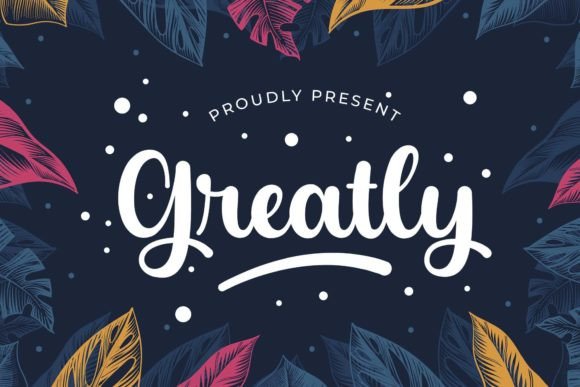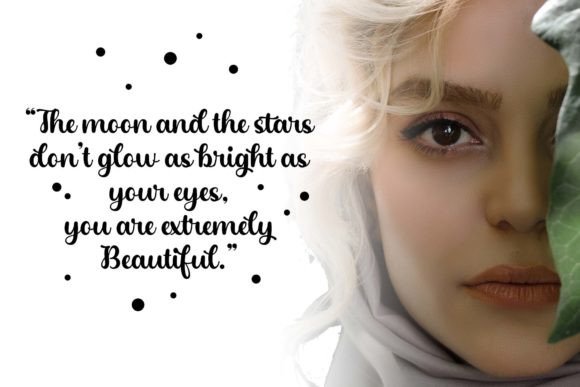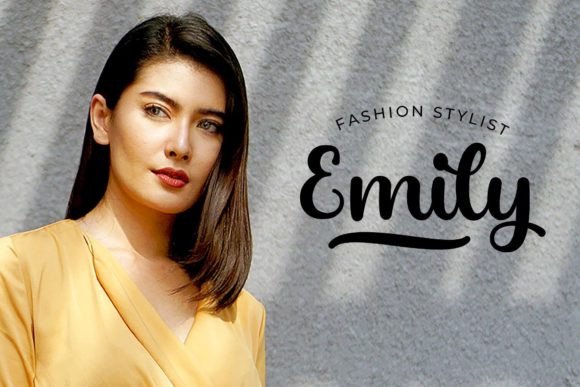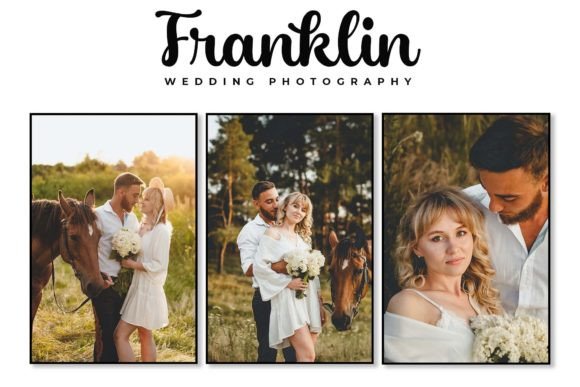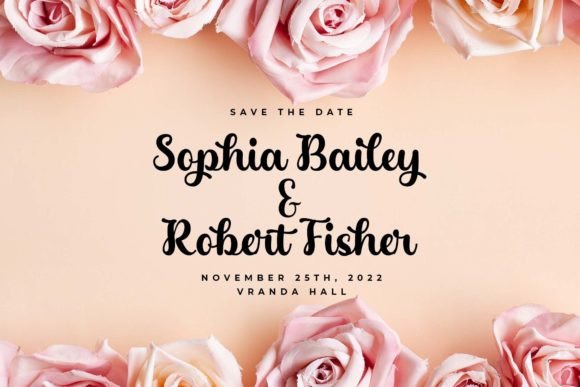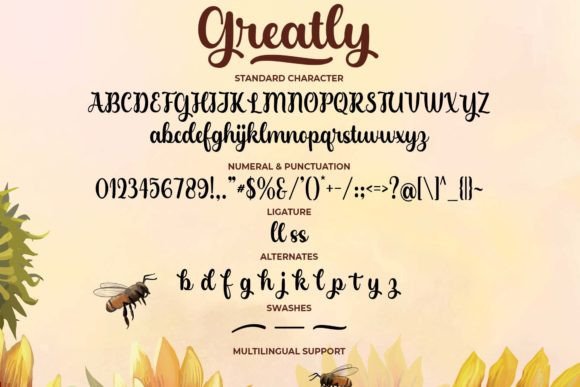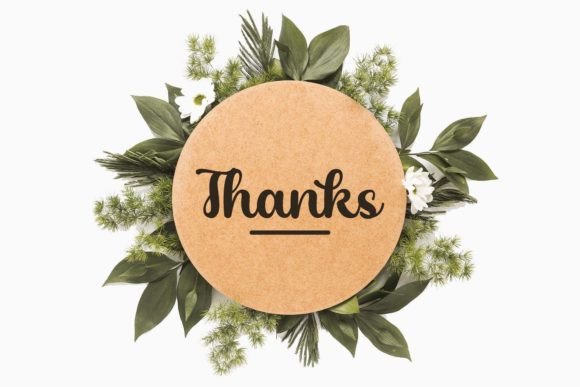
Greatly Font
Greatly Font Download – Elegant Calligraphic Script
The Greatly Font download is a calligraphic script typeface designed with elegance, subtlety, and sophistication. With its flowing strokes and beautiful alternate characters, this font blends glamour with readability, making it a perfect choice for both formal and creative projects. Whether for branding, invitations, or editorial design, Greatly brings timeless style to your work.
Elegant Calligraphy with Alternate Characters
The Greatly Font download includes carefully designed alternate characters that add variety and refinement. Each stroke feels feminine and glamorous, yet remains simple and easy to read. This makes it a versatile option for projects that need both decorative flair and clarity.
Perfect for Invitations and Stationery
Formal designs such as wedding invitations, greeting cards, and menus shine with the Greatly Font download. Its classic handwritten calligraphy style brings elegance to events and celebrations, ensuring every piece feels luxurious and memorable.
Ideal for Branding and Logos
Typography plays a crucial role in identity, and the Greatly Font download is well-suited for logos, fashion branding, cosmetics, and high-end products. Its refined flow communicates creativity, romance, and professionalism, making it ideal for industries that require an elegant look.
Great for Editorial and Packaging Design
The Greatly Font download also excels in editorial and product packaging. From magazines and romantic novels to labels and luxury packaging, it adds a classic touch while keeping text legible. Its balance of beauty and simplicity makes it reliable across both print and digital applications.
Readability with Classic Style
Unlike overly decorative fonts, the Greatly Font download retains excellent readability. Its clean calligraphic strokes ensure text remains easy to follow, while still carrying the elegance needed for formal projects. This makes it a dependable choice for everything from headlines to long-form text.
Why Choose Greatly Font?
Among calligraphic script fonts, the Greatly Font download stands out for its balance of glamour, simplicity, and usability. It’s feminine and romantic without losing practicality, making it a versatile font for a wide range of projects.
Add Glamour and Elegance to Your Designs
Typography sets the tone for your creative work, and the GreatlyFont download ensures your designs feel elegant, timeless, and professional. Whether for logos, invitations, or packaging, this calligraphic script helps you make a lasting impression.